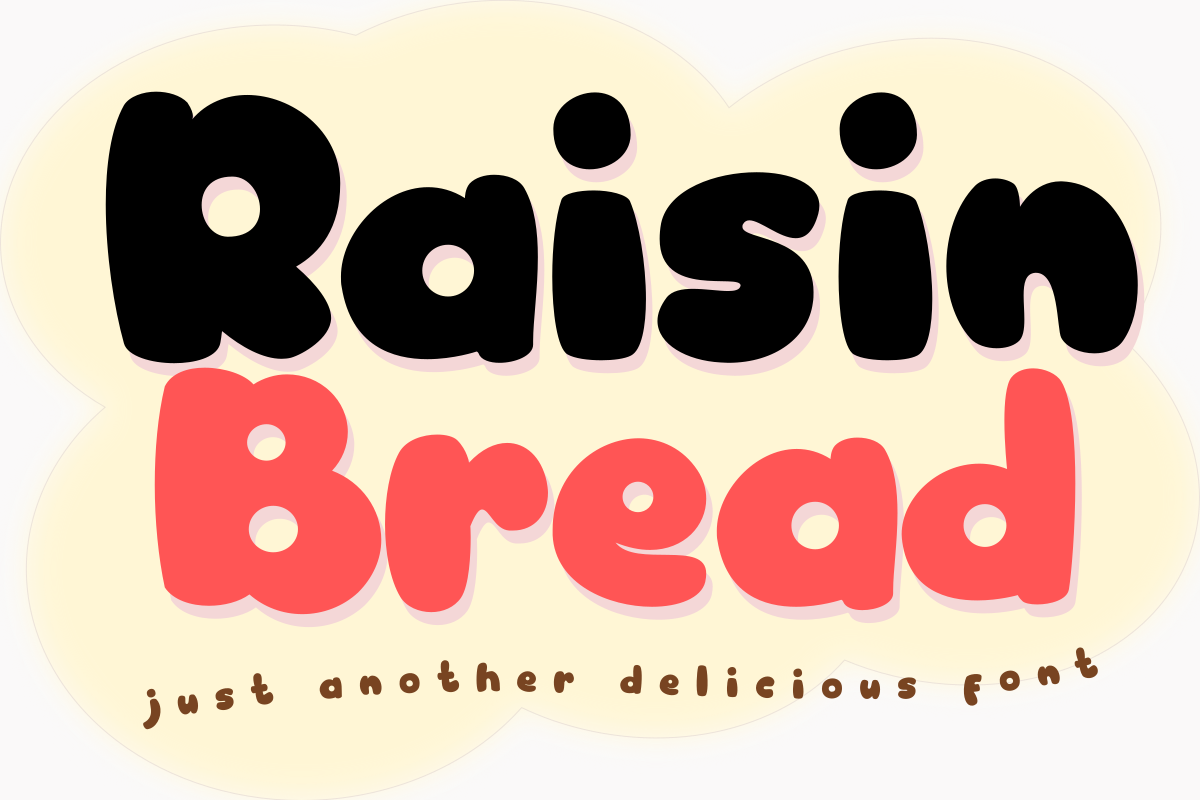
Created By deedeetype
Raisin Bread
Introducing Raisin Bread. This font is great for cartoonish designs, posters, cards, tshirts, merchandises, book cover, social media, stickers, magazines and many more!